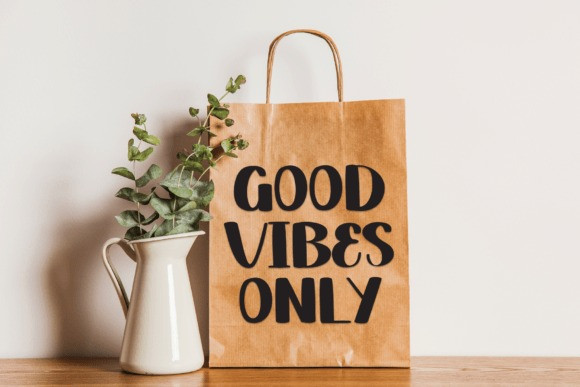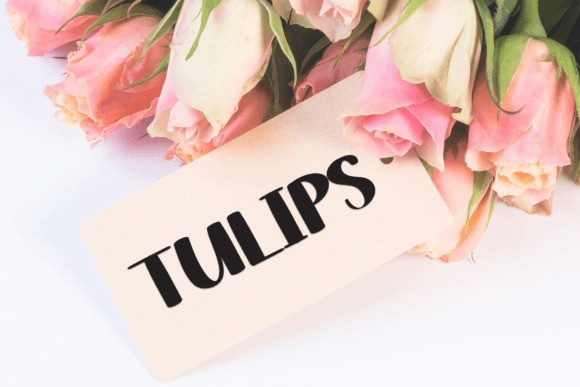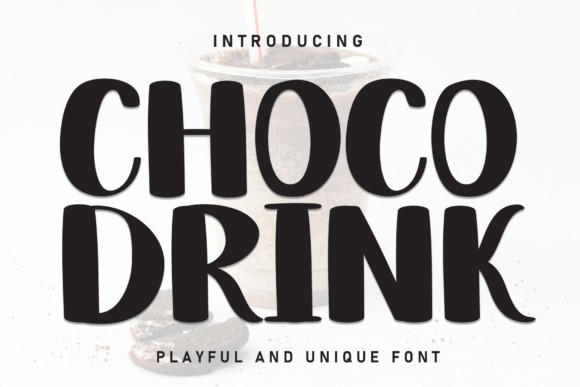
Choco Drink Font
Choco Drink Font is a deliciously chunky display font that satisfies typographic cravings. With bold, rounded letters, it exudes a playful charm reminiscent of chocolatey delights. Ideal for eye-catching headlines, packaging, or any design craving a touch of sweetness, Choco Drink adds a flavorful and enticing aesthetic to your creations.